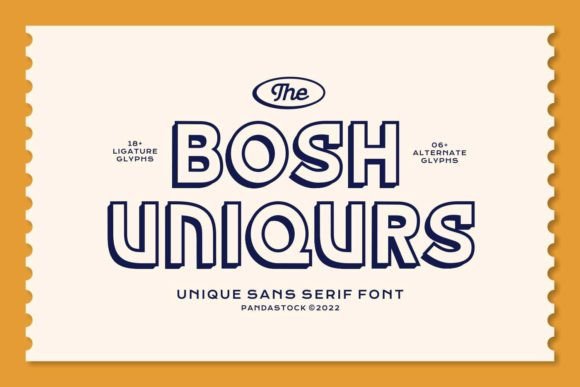
Dive into the world of captivation and elegance with Bosh Uniqurs Font, the ultimate sans serif font that transforms your designs into masterpieces. Experience the allure of smooth curves, the grace of beautiful ligatures, and the brilliance of visual harmony that elevates your work beyond expectations.
Indulge in the versatility of Bosh Uniqurs, a font that seamlessly adapts to both large and small sizes, maintaining its exceptional clarity and readability. This font is a true chameleon, effortlessly adapting to a vast array of design projects, from the grandeur of logos to the intimacy of personal notes.
Unleash your creativity with Bosh Uniqurs, the perfect font for a myriad of projects. Its versatility knows no bounds, catering to the demands of logos, invitations, branding, magazines, photography, cards, product packaging, product mockups, mugs, quotes, posters, labels, signatures, editorials, websites, art deco, social media, and much more.
Step into the world of sophistication and style with Bosh Uniqurs, a font that complements every business sector. Whether you're embarking on personal projects, working in studios, navigating corporate landscapes, or thriving in creative agencies, industrial settings, or company ventures, this font is your trusted companion.
With Bosh Uniqurs, you'll find a font that embodies perfection, a font that transforms your ideas into tangible works of art. Its visual elegance and captivating charm will leave your audience spellbound, making a lasting impression that resonates with their hearts and minds.